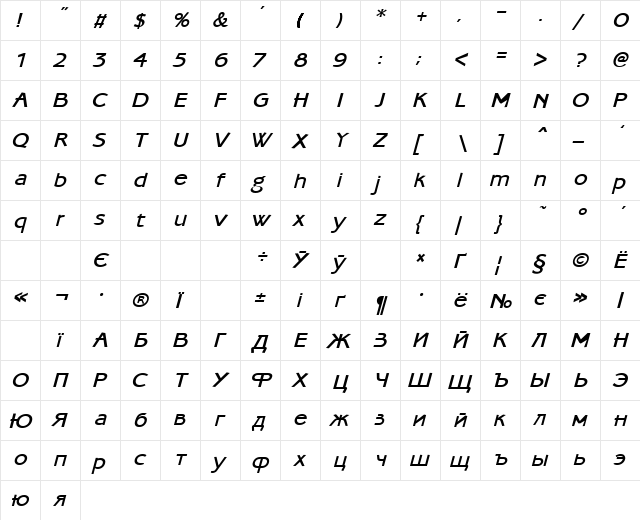
AmbassadoreType Medium-ItalicA
Design Context for AmbassadoreType Typeface
AmbassadoreType takes a measured approach to typography — its balanced proportions and neutral character make it a reliable workhorse for both digital and print work. Its italic angle brings a sense of urgency and motion to the letterforms.
Pro Tip: Use AmbassadoreType for emphasis, pull quotes, and subheadings where its slanted energy can add rhythm to the layout.